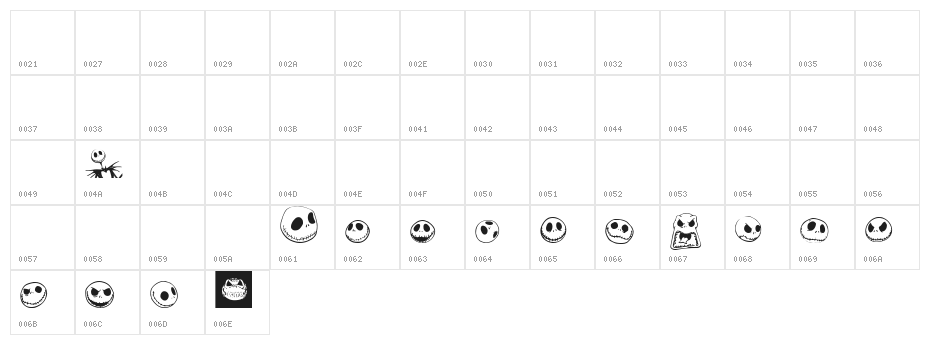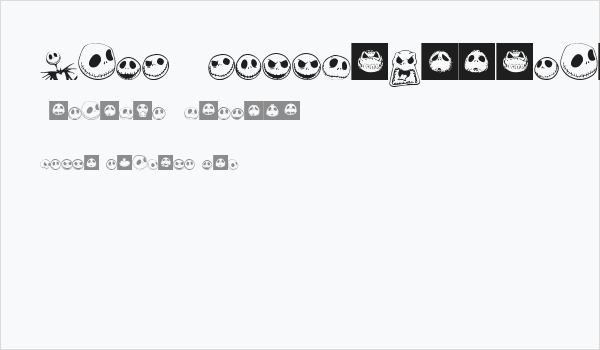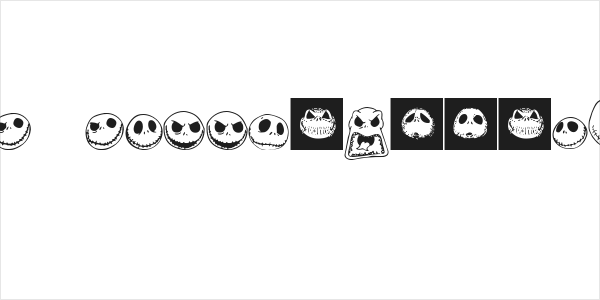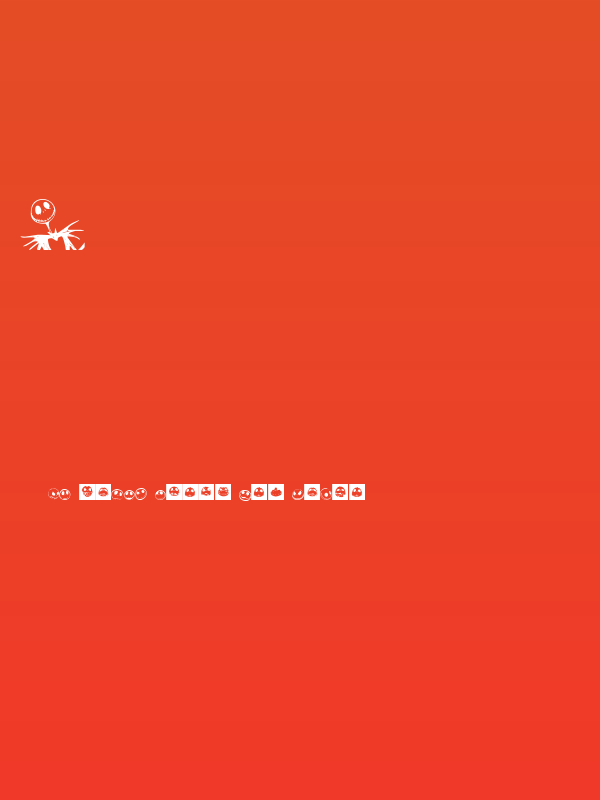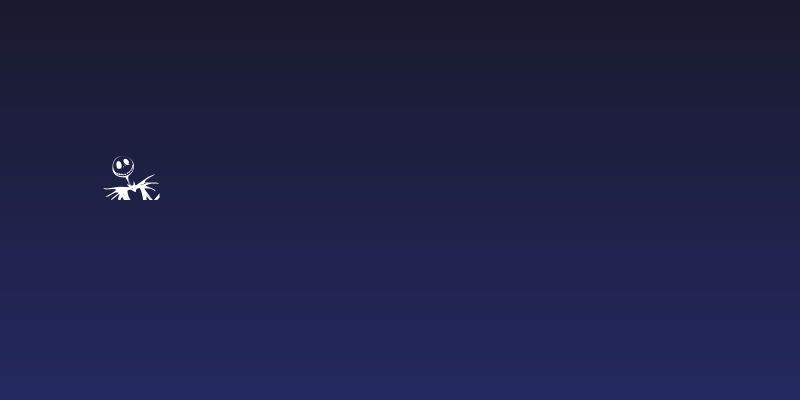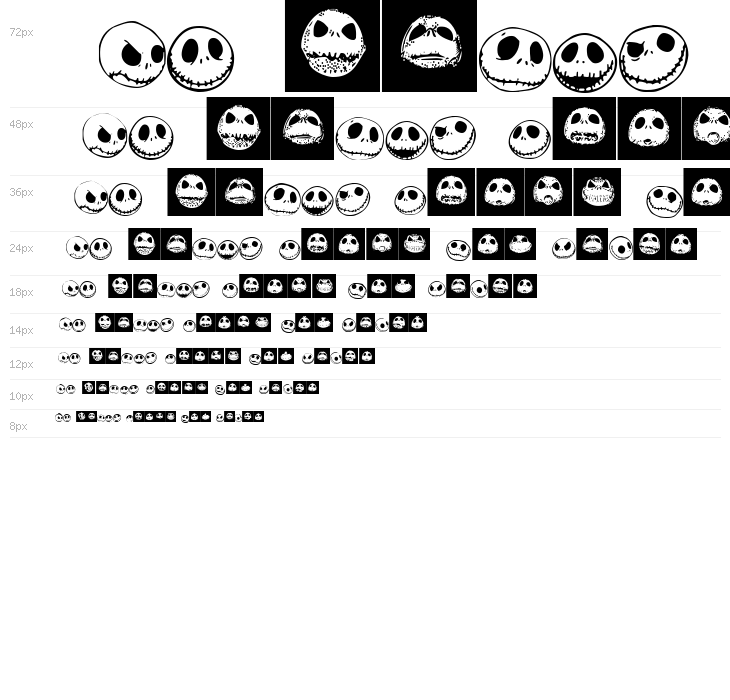
Jack Skellingtonbats Font
Jack Skellingtonbats Description
This is not a traditional font but rather a collection of character illustrations inspired by a well-known animated character. Each character is represented by a unique facial expression, ranging from happy to angry, capturing a variety of emotions. The designs are highly stylized, with bold outlines and expressive features, making them suitable for decorative purposes rather than text-based communication.
| Use Case | Logos, Decorative elements |
| Proposed Projects | Ideal for themed party invitations, Halloween decorations, or merchandise designs that require a playful and spooky aesthetic. |